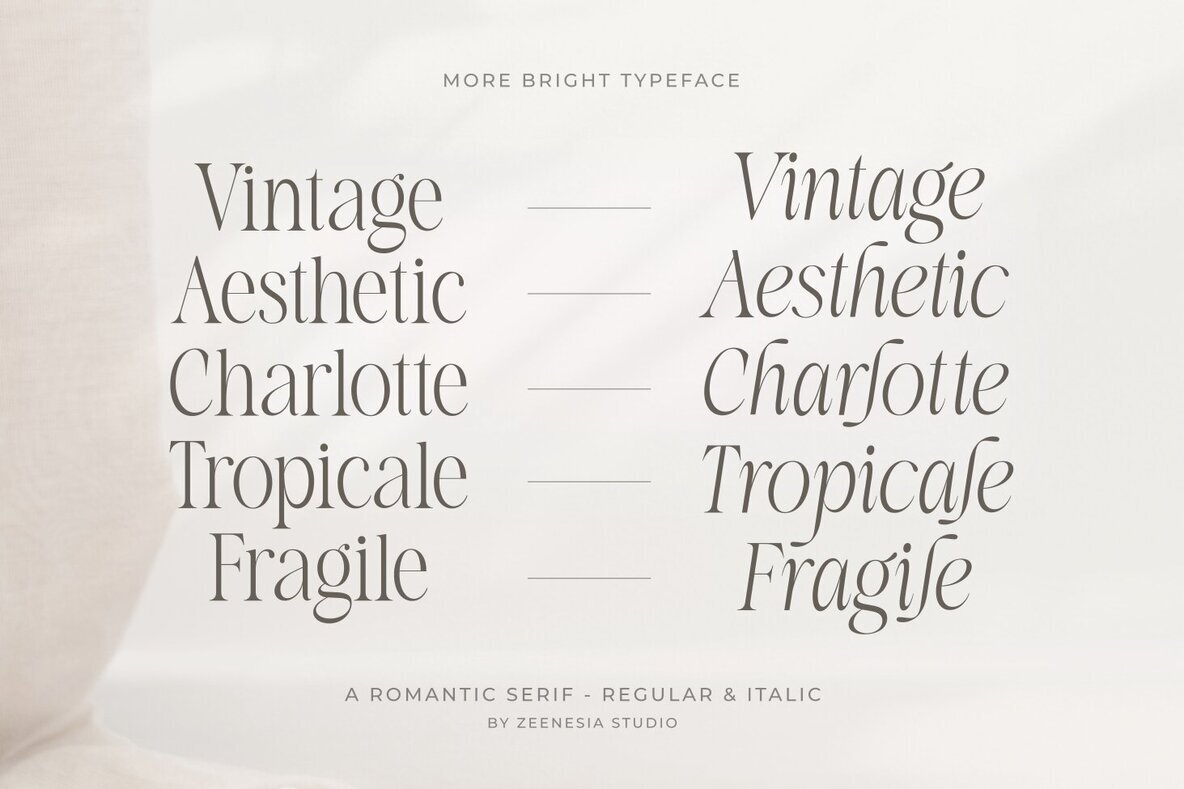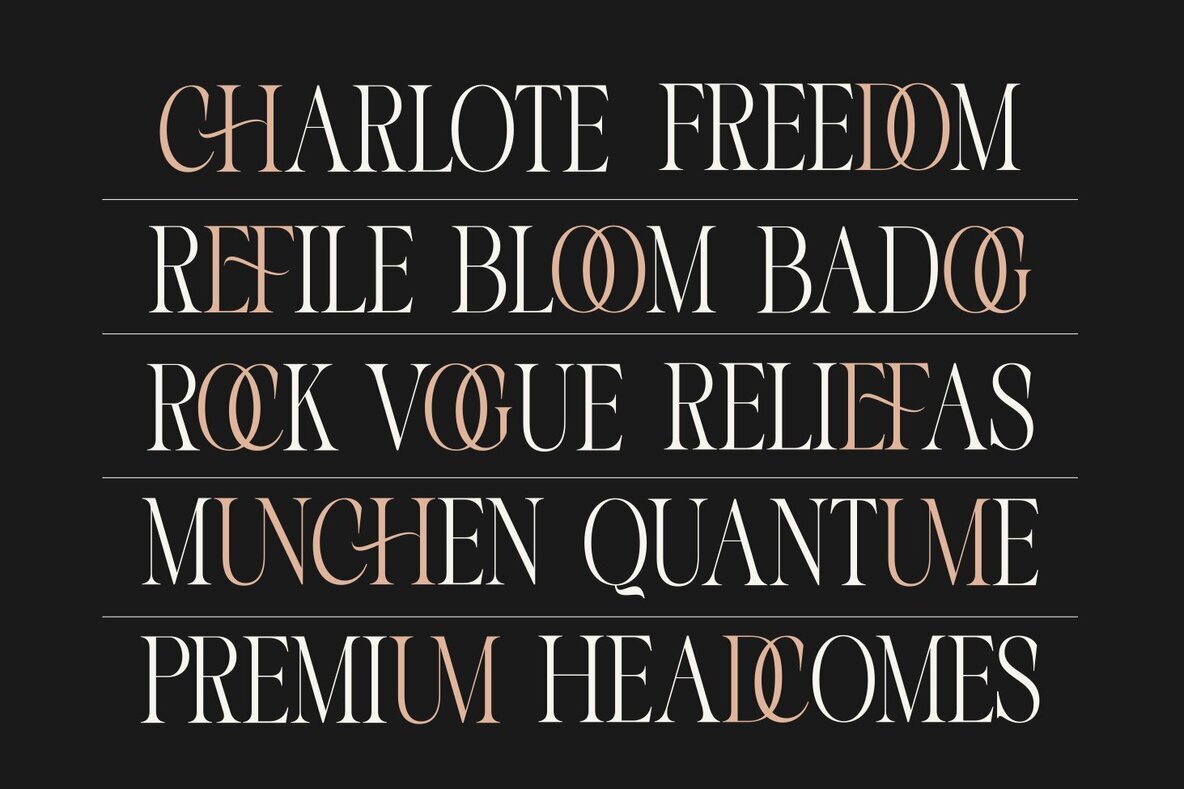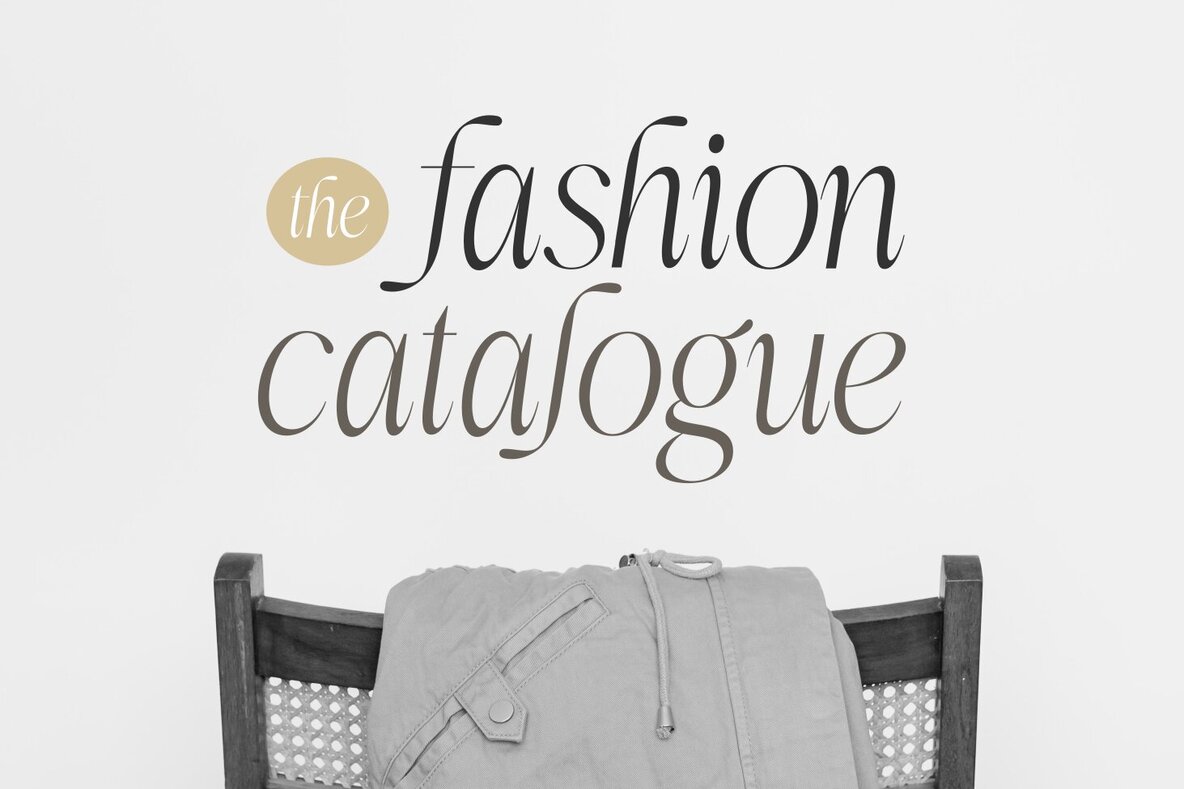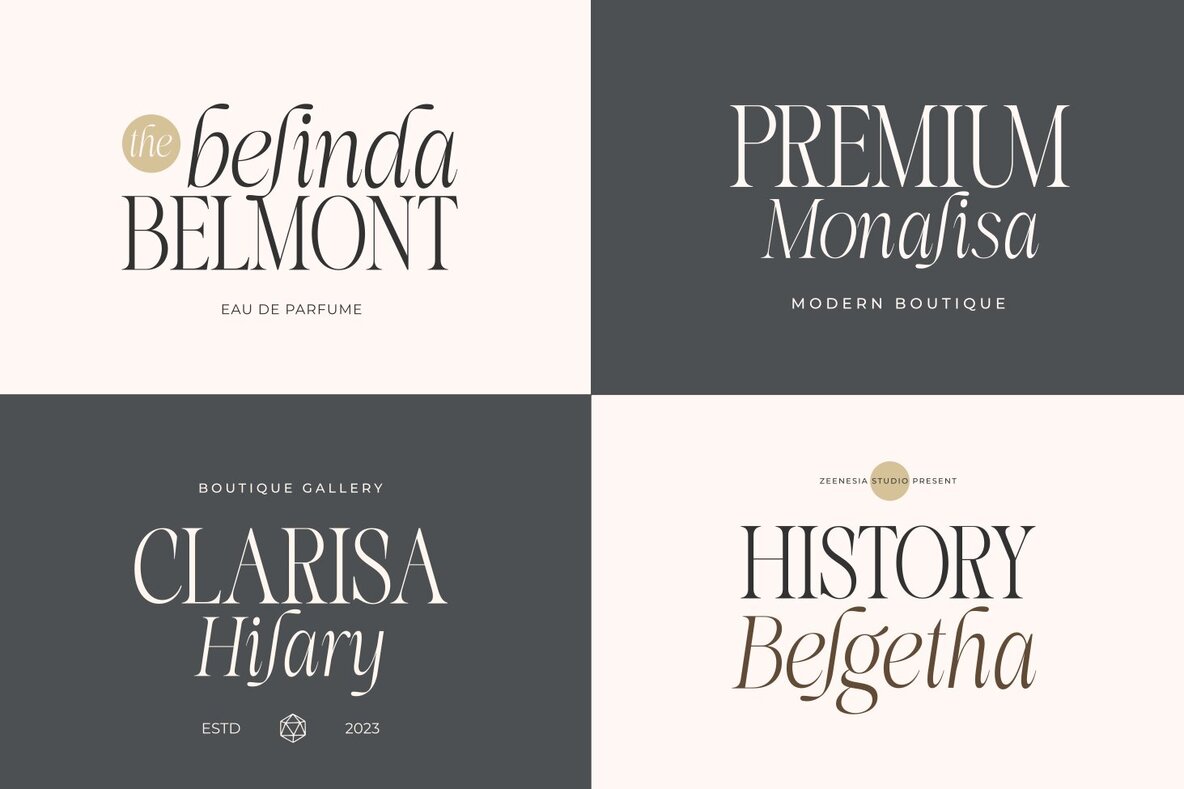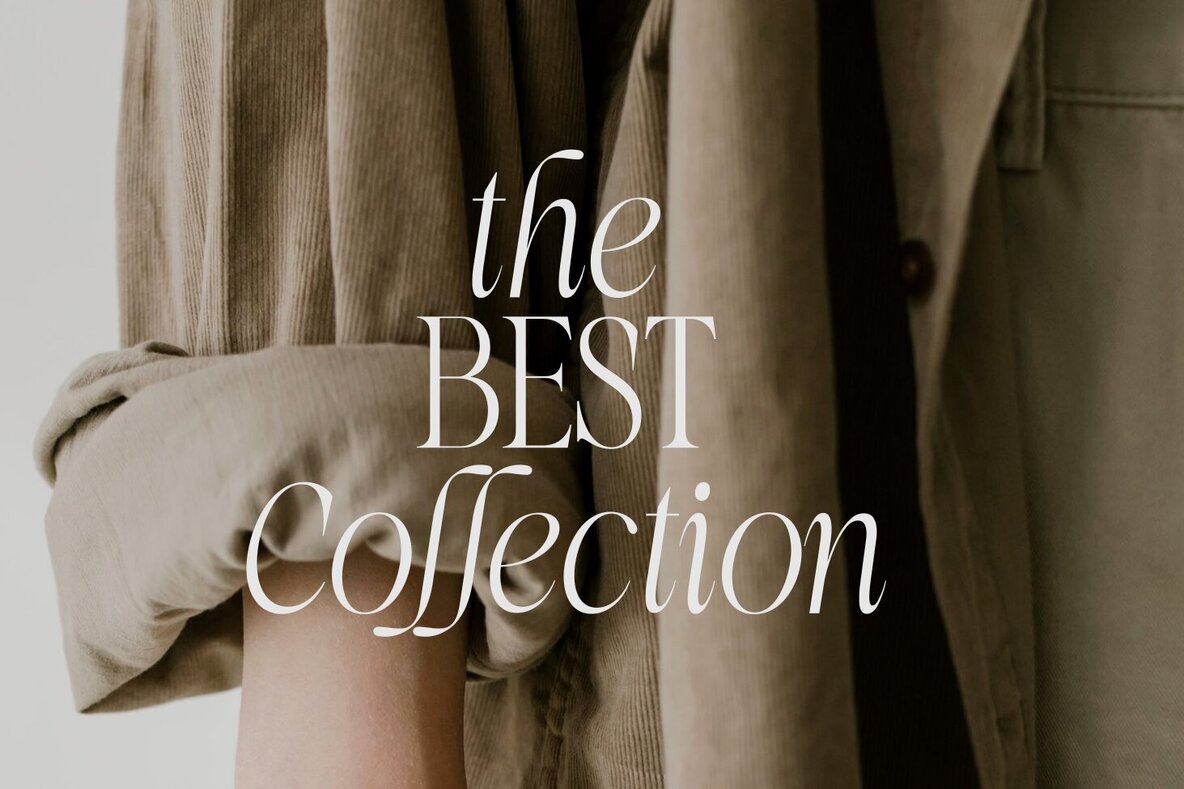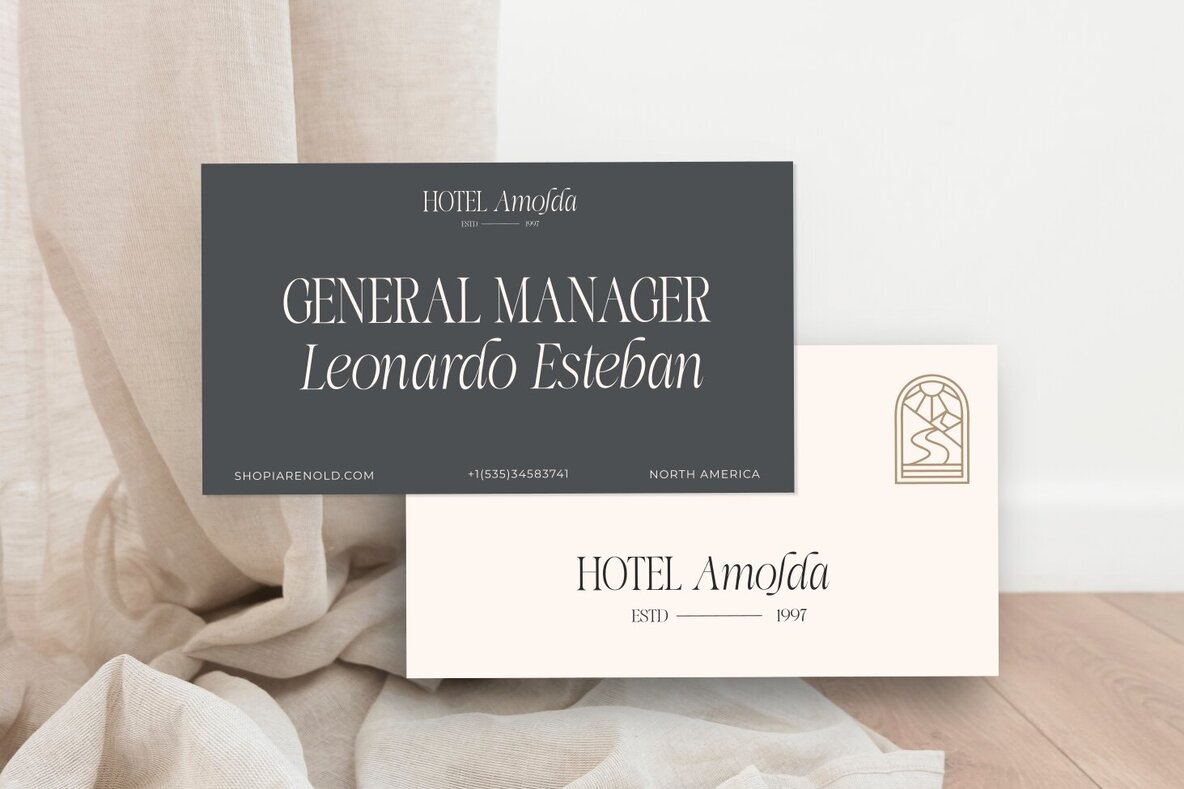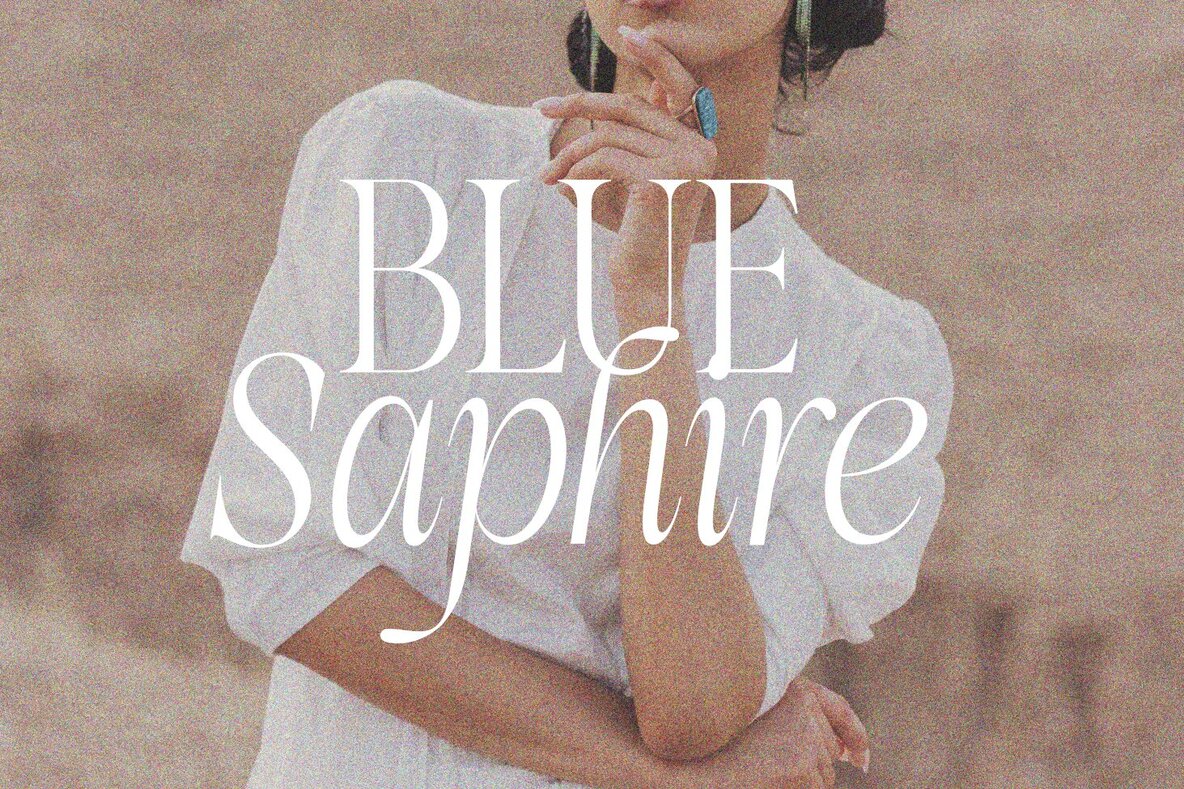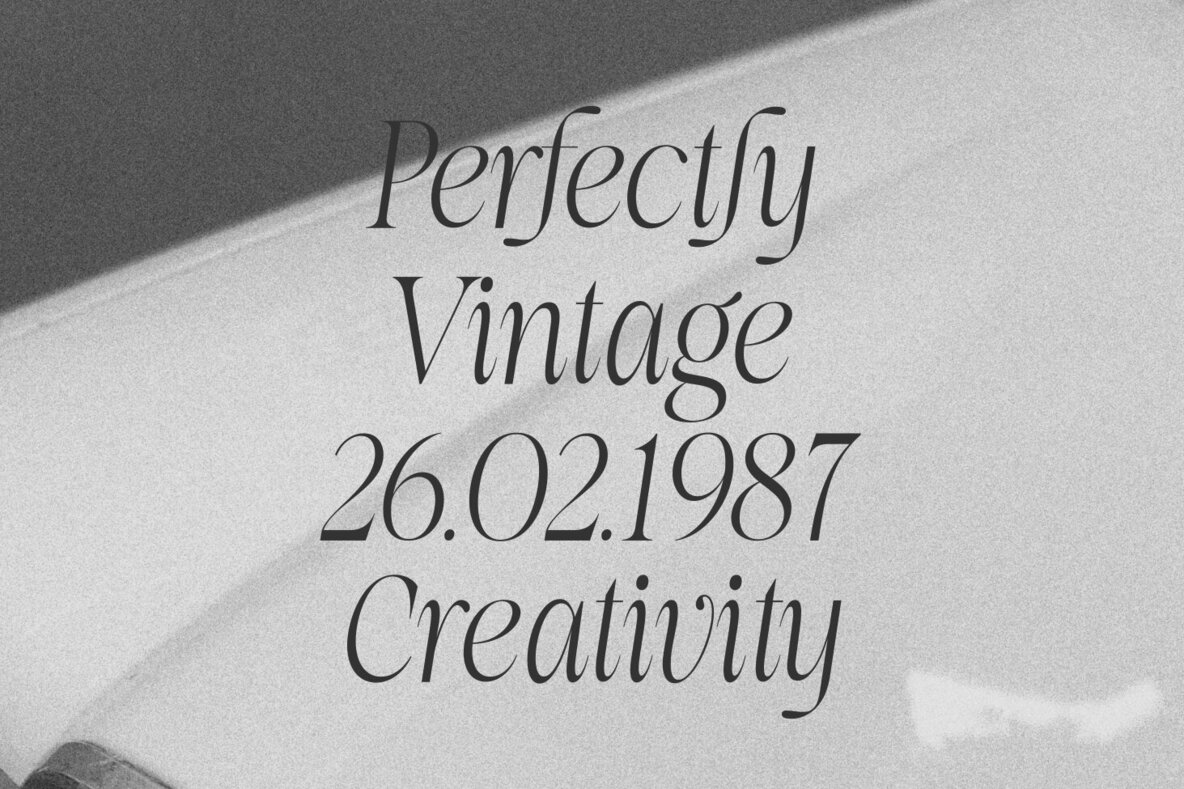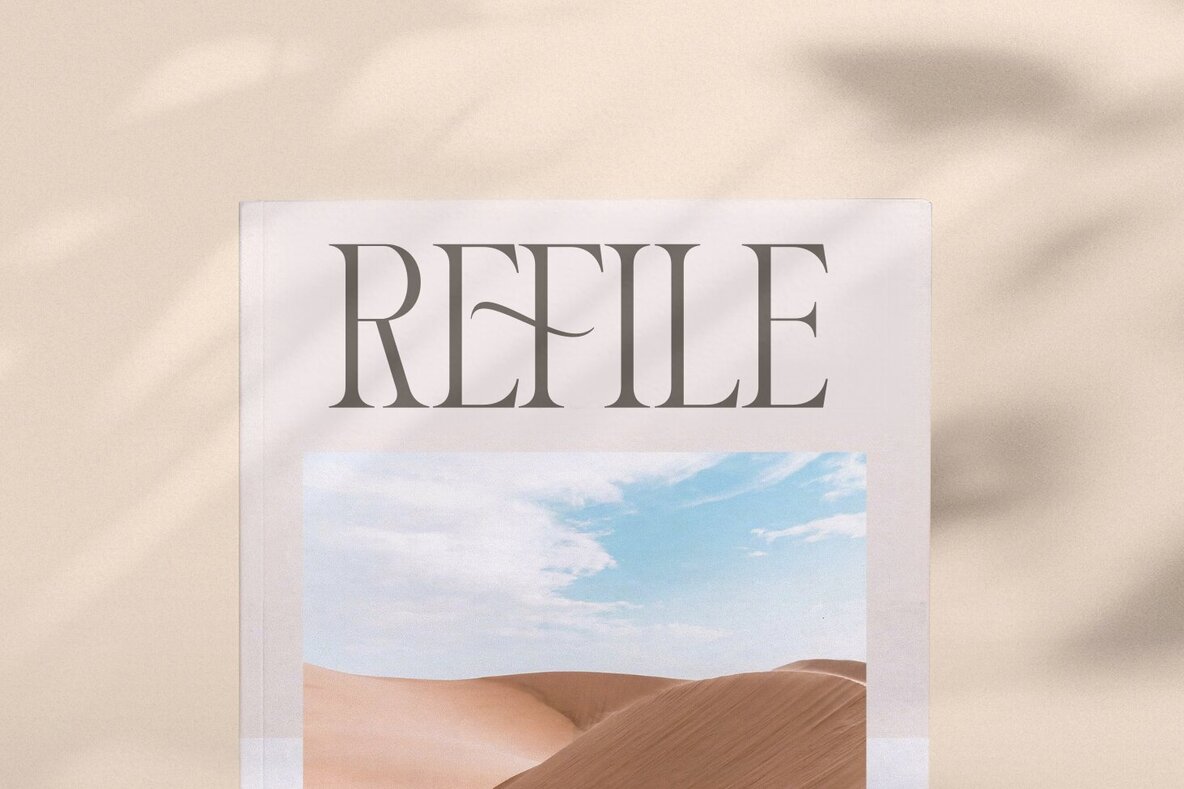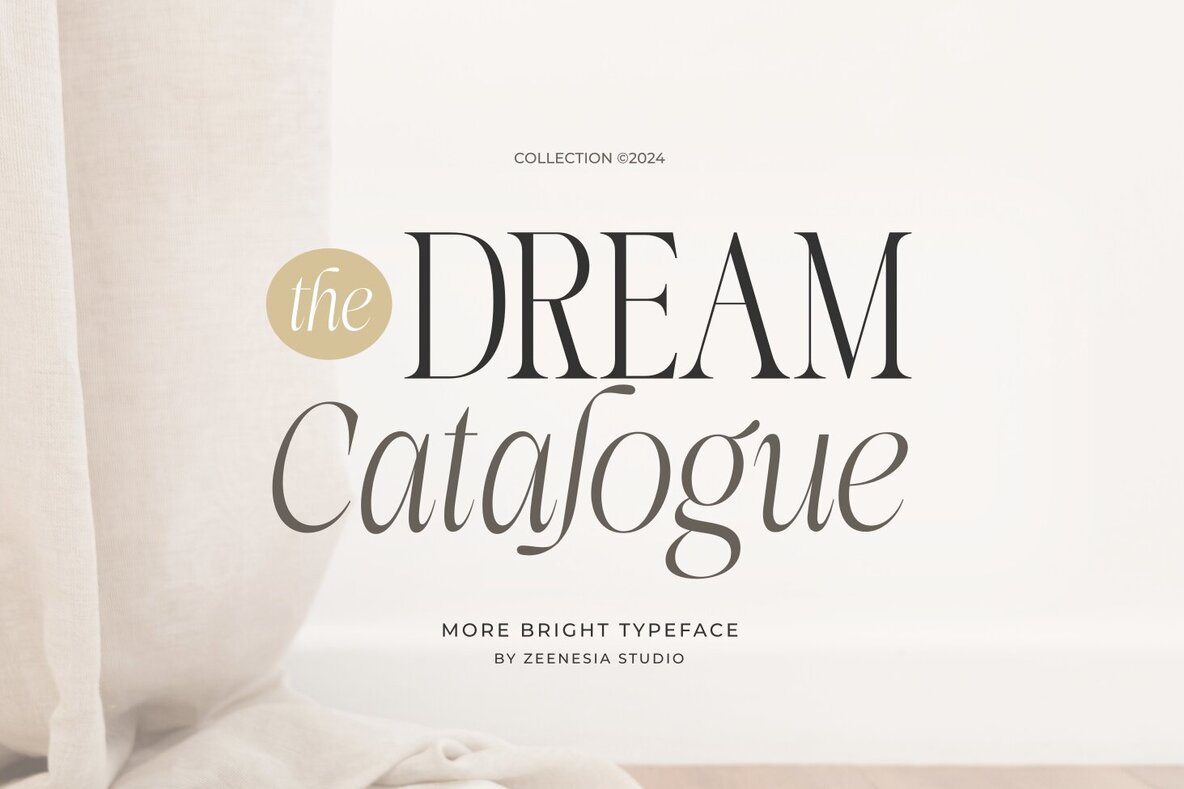
More Bright Font
More Bright by Zeenesia Studio is an elegant and smooth typeface, available in both regular and italic styles. It's a versatile serif font, ideal for use in large displays. The inclusion of stylistic alternates and ligatures ensures a polished, professional look for any project. More Bright is perfect for a wide range of design projects, including: We hope you enjoy using More Bright. Please feel free to share your thoughts or feedback with us. Thank you for your purchase, and we're glad to assist you in any way.More Bright: Elegant and Versatile Serif Typeface
Perfect for Diverse Design Needs
Additional Features